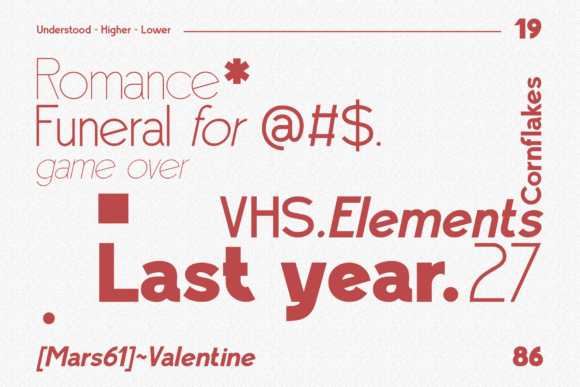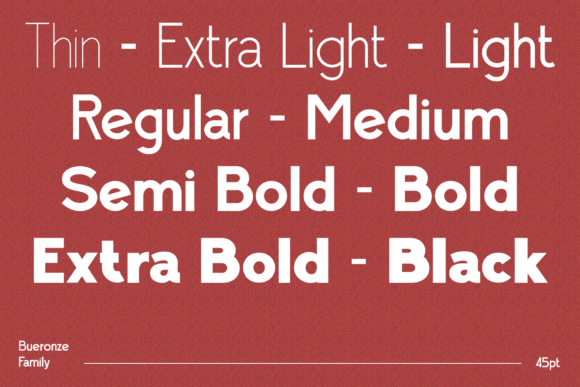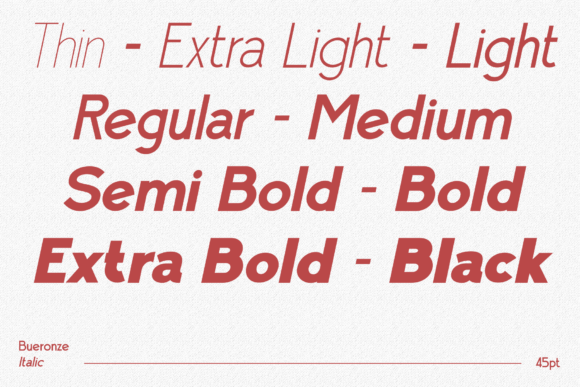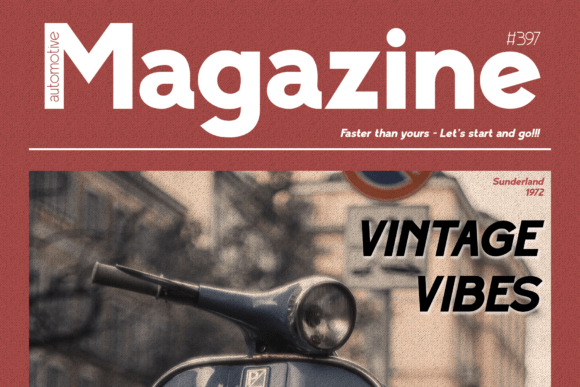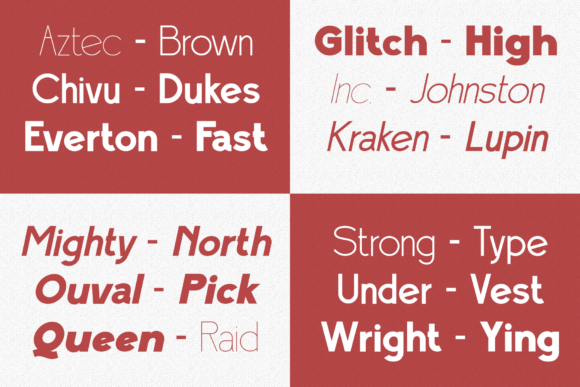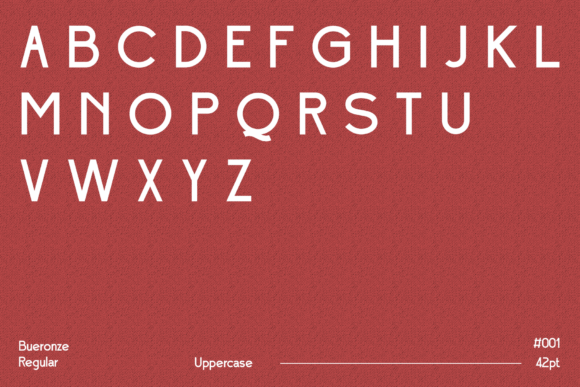
Discover the Versatility of Bueronze Font: A Modern Sans Serif for Every Project
In the world of typography, finding the perfect font for your project can be a daunting task. Whether you’re a designer, craftsperson, or simply a DIY enthusiast, the right font can elevate your work from ordinary to extraordinary. If you’re on the hunt for a versatile, modern sans serif font that can adapt to various projects, look no further than Bueronze. This variable font offers over 15 variations, making it an excellent choice for a wide range of applications, from modern branding and body text to articles and social media content.
Clean, Easy-to-Read Design
Like most sans serif fonts, Bueronze boasts a clean, easy-to-read design that makes it perfect for body text. Its straightforward and uncomplicated appearance ensures that your message is conveyed clearly, without any distractions. This characteristic makes Bueronze an ideal choice for articles, blog posts, and any content where readability is paramount.
Variety at Your Fingertips: 15+ Variations
One of the standout features of Bueronze is its variability. This font comes in a range of weights, from Bueronze Thin to Bueronze Black, offering you the flexibility to adjust the letter thickness according to your project’s needs. Whether you’re designing a sleek, modern logo or a comprehensive article, Bueronze’s range ensures that you can maintain consistency in your typography while experimenting with different styles.
Italic Options for Added Emphasis
In addition to its various weights, Bueronze also includes italic versions, providing you with even more options for emphasizing certain parts of your text. Italics can be particularly useful for highlighting key points, setting off quotations, or simply adding visual interest to your content. With Bueronze’s italics, you can add depth and nuance to your typography without needing to switch fonts.
Ideal for Digital and Physical Media
In today’s digital age, content is consumed across a multitude of platforms, from social media and websites to print materials and signage. Bueronze’s versatility makes it an excellent choice for both digital and physical media. Its clear, legible design ensures that your message is effectively communicated, whether it’s viewed on a screen or in print. This adaptability makes Bueronze a valuable asset for anyone who creates content for various mediums.
Applications in Modern Branding
For businesses and brands looking to establish a modern, cohesive visual identity, Bueronze offers a wealth of possibilities. Its range of weights and styles allows for the creation of a hierarchical typography system, which is essential for effective branding. By using different weights of Bueronze, you can create visual distinctions between headings, subheadings, and body text, all while maintaining a unified aesthetic.
Tips for Using Bueronze in Your Projects
- Experiment with Weights: Don’t be afraid to try out different weights of Bueronze to find the perfect balance for your project. From thin to black, each weight offers a unique feel that can dramatically alter the tone of your content.
- Pair with Other Fonts: While Bueronze is versatile enough to stand alone, it can also be paired with other fonts for added contrast. Look for fonts that complement its clean, sans serif design.
- Consider Readability: Even with its wide range of applications, readability should always be a top priority. Ensure that the weight and style of Bueronze you choose is easy to read, especially for body text.
| Author | ilhamtaro |
Bueronze font stands out in the world of typography for its versatility, readability, and modern appeal. With over 15 variations, including italics, this variable sans serif font is equipped to handle a wide array of projects, from detailed articles and body text to sleek branding and social media content. By incorporating Bueronze into your design toolkit, you’ll be well-prepared to tackle any typography challenge that comes your way, creating visually appealing and effective content for both digital and physical media.